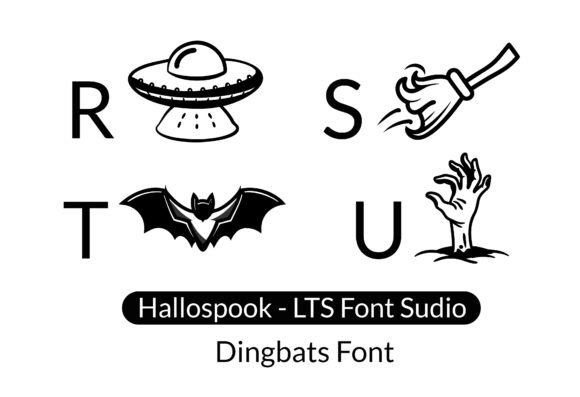
Unleash the Spookiness: Introducing the Hallospook Font
Are you ready to add a dash of eerie elegance to your creative projects? Look no further than the Hallospook Font, a fun and spooky dingbat font that’s perfect for Halloween enthusiasts and designers alike. With its hauntingly charming theme in a sketchy style, this font is sure to cast a spell on your audience.
The Perfect Font for Spooky Designs
Halloween is just around the corner, and with it comes the opportunity to get creative with your designs. Whether you’re working on Halloween party invitations, DIY crafts, decorations, logos, t-shirts, or any other frightfully fun designs, the Hallospook Font is the perfect addition to your toolkit. Its unique blend of spooky and playful elements makes it an ideal choice for designers and crafters looking to add a touch of whimsy to their work.
What Makes Hallospook Font So Special?
The Hallospook Font is a dingbat font, which means it’s made up of symbols and icons rather than traditional letters. This makes it perfect for adding a touch of visual interest to your designs. The font features a range of spooky and fun icons, including ghosts, bats, spiders, and jack-o’-lanterns, all presented in a charmingly sketchy style. The result is a font that’s both eerie and endearing, perfect for adding a touch of Halloween magic to your designs.
With the Hallospook Font, the design possibilities are endless. Here are just a few ideas to get you started:
• Halloween Party Invitations: Create spooky and fun invitations that set the tone for a howling good time.
• DIY Crafts: Add a touch of personality to your DIY crafts, such as Halloween decorations, gift tags, and cards.
• Logos and Branding: Use the Hallospook Font to create a spooky and memorable logo for your business or brand.
• T-Shirts and Apparel: Design spooky and fun t-shirts, hoodies, and other apparel that’s perfect for Halloween enthusiasts.
• Social Media Graphics: Add a touch of Halloween flair to your social media graphics, such as Facebook posts, Instagram stories, and Twitter headers.
Why Choose the Hallospook Font?
So why choose the Hallospook Font over other fonts? Here are just a few reasons:
• Unique and Eye-Catching: The Hallospook Font is a one-of-a-kind font that’s sure to grab attention.
• Versatile: The font can be used for a wide range of design projects, from Halloween party invitations to logos and branding.
• Fun and Spooky: The font is perfect for adding a touch of Halloween fun and spookiness to your designs.
Get Creative with Hallospook Font
Font Name Hallospook Font
In conclusion, the Hallospook Font is a fun and spooky dingbat font that’s perfect for designers and crafters looking to add a touch of Halloween magic to their designs. With its unique blend of spooky and playful elements, this font is sure to cast a spell on your audience. So why wait? Download the Hallospook Font today and start creating some spooktacular designs!